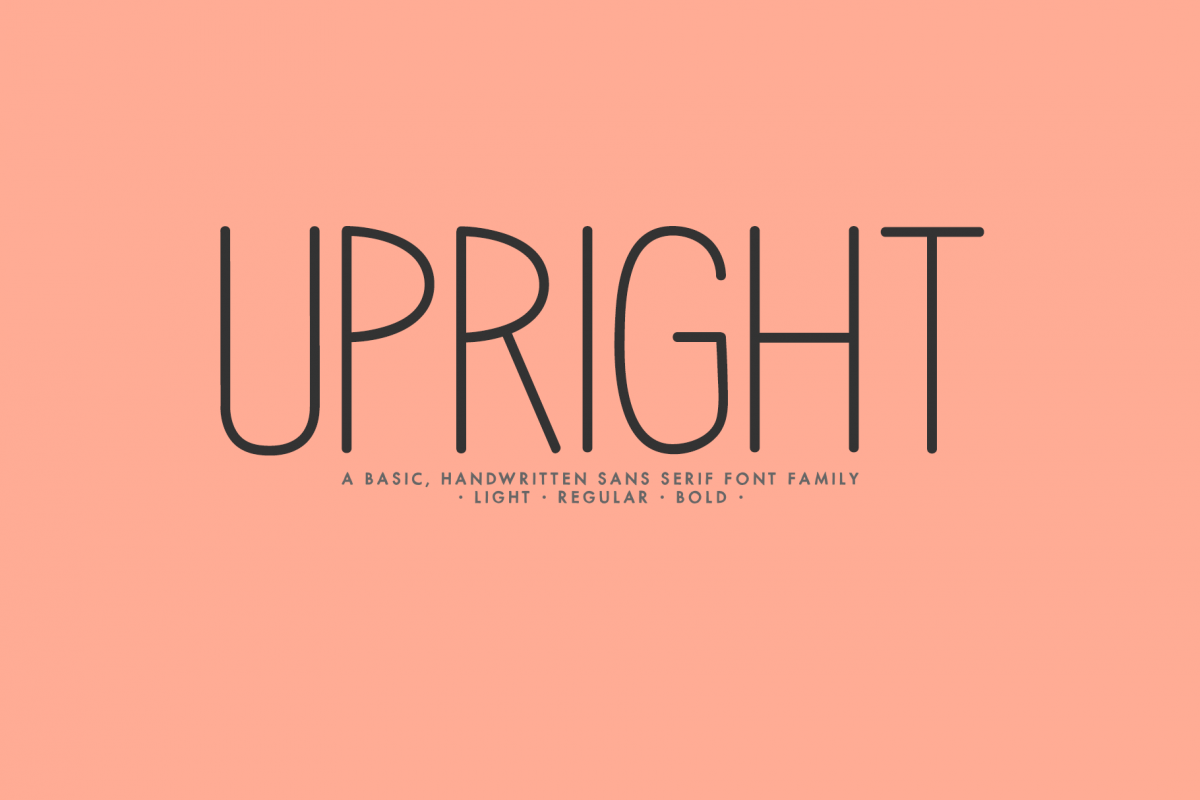
Upright - A Handwritten Sans Serif
Mix Upright Light
Mix Upright
Mix Upright Bold
MIX UPRIGHT is a basic, handwritten, sans serif font family—a bundle of three different styles. This font family is perfect for handmade and DIY themed projects.
• (1) Mix Upright
• (2) Mix Upright Light
• (3) Mid Upright Bold